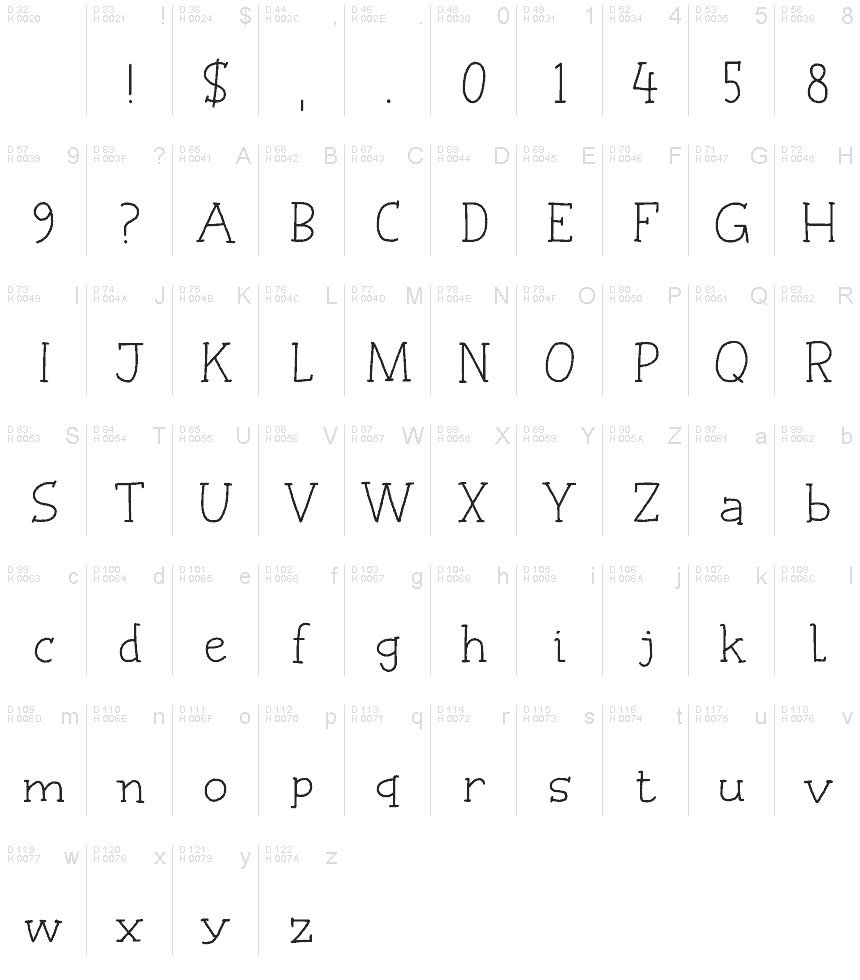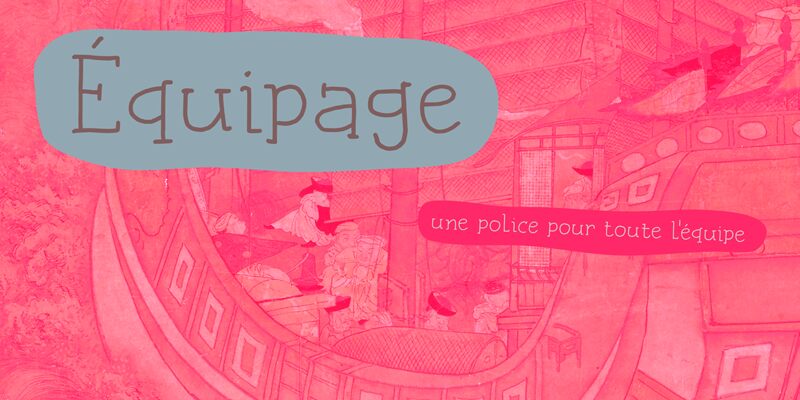
Equipage DEMO Regular
Equipage font is a display font designed by David Kerkhoff. It displays a medium level of contrast in the design of the letters which are created from irregular lines. Despite this characteristic, Equipage has a consistent style which can be seen in the unique whimsical elements incorporated into it. The font doesn’t look extremely serious, although it can definitely have its own charm when used in different contexts.
This free display font fits especially well within headlines and other texts with large sizes. Include Equipage in invitation cards or on posters and magazine covers. Give your marketing campaigns an edge with this antique style typeface inside brochures and flyers or through social media posts with creative captions written in particularly creative ways! Labels also make good use of this vintage-styled odd serif typeface among many other applications possible according to your imagination!